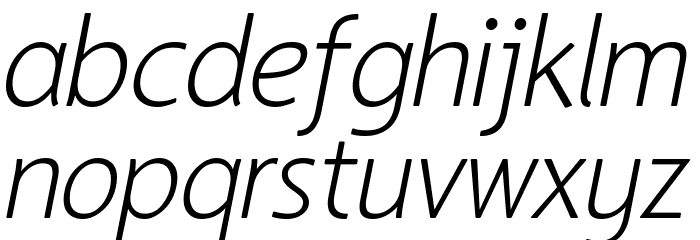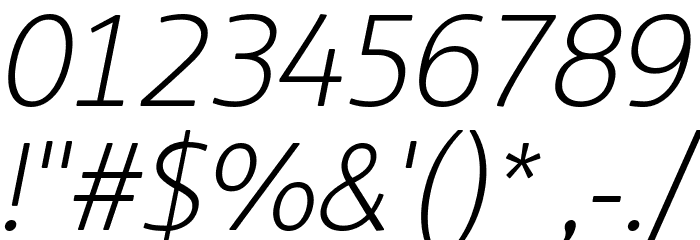
LT Asus Light Italic Font
This font features a sleek and modern design with a light weight and italic style. The characters are elegantly slanted, giving a sense of motion and fluidity. The strokes are consistent and smooth, with a low contrast between thick and thin lines, which enhances readability. The overall appearance is clean and minimalistic, making it suitable for contemporary design projects. The spacing between characters is normal, ensuring clarity and legibility across various sizes. This font exudes a sense of sophistication and is ideal for projects that require a modern and stylish touch.
A sleek, modern, light italic font with smooth strokes and low contrast.
- Proposed Projects: Ideal for branding, editorial design, websites, and modern advertising.